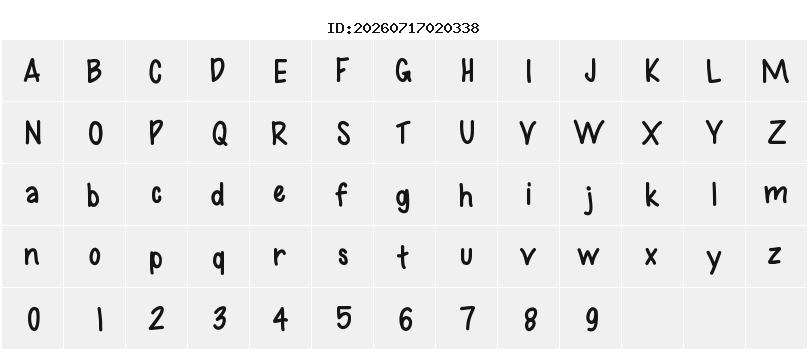
• Font Name: AHintofSass
• Font ID: SarahHemmerly:AHintofSass
• Full Font Name: AHintofSass
• PostScript Name: AHintofSass
About AHintofSass.ttf
AHintofSass.ttf is a modern, elegant sans-serif font designed for ultimate readability and visual harmony. Perfect for branding, headlines, web design, and print materials.